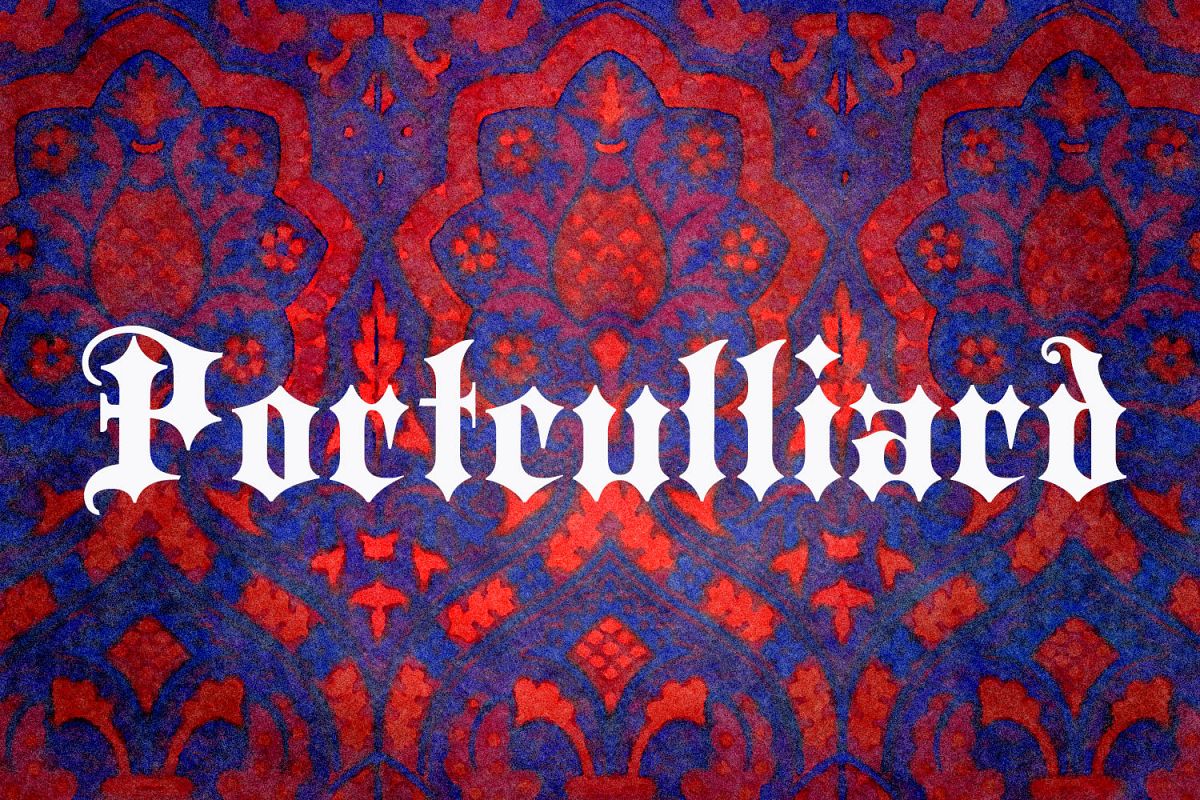
Portculliard
Greater Albion always releases a Black letter each year, hopefully well before the Christmas seas (which we seem to have managed this year - September). There is something about this year's project which suggests a caste portcullis to us.  Why not visit ye olde world in your next designer project?